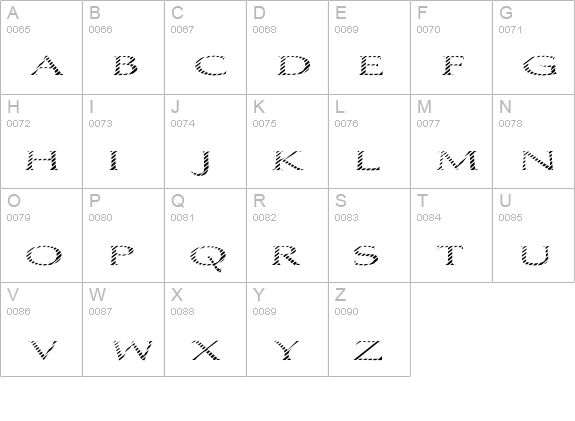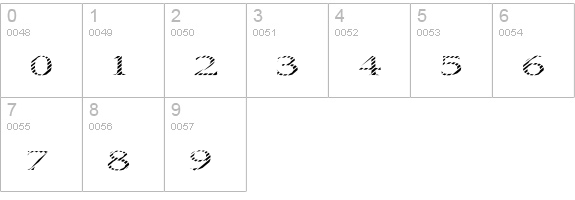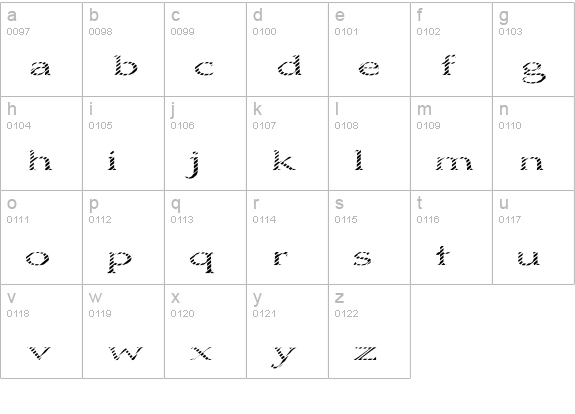
Boldly Go Font Details
Boldly Go font is a sleek and modern typeface that exudes confidence and sophistication. With its bold and stylish design, this font is perfect for making a statement in your designs. Whether you're creating a poster, logo, or web design, Boldly Go font will surely grab attention and leave a lasting impression. The best part? Boldly Go font is available for free download at FontsMarket.com. Yes, you read that right - you can get your hands on this stunning font without spending a dime. Don't miss out on the opportunity to add Boldly Go font to your collection and take your designs to the next level. Download it now and start creating with style and flair!